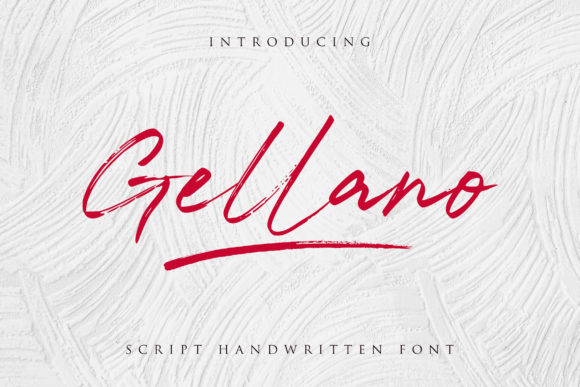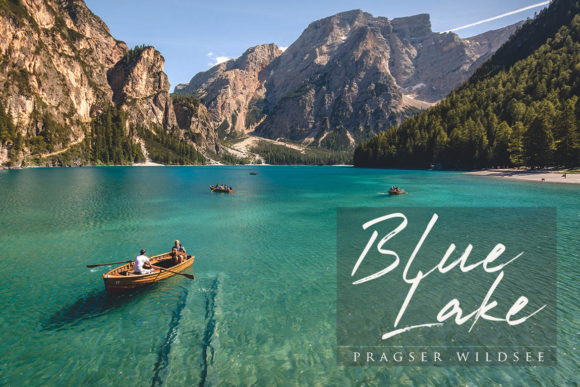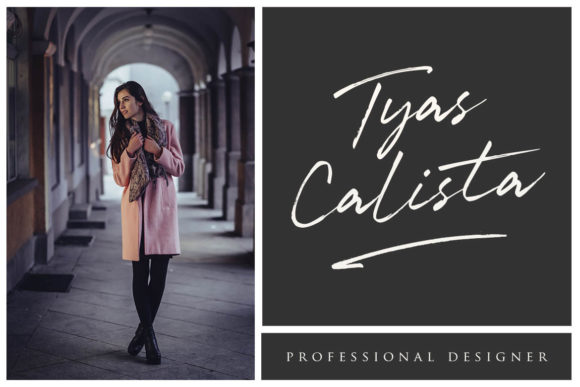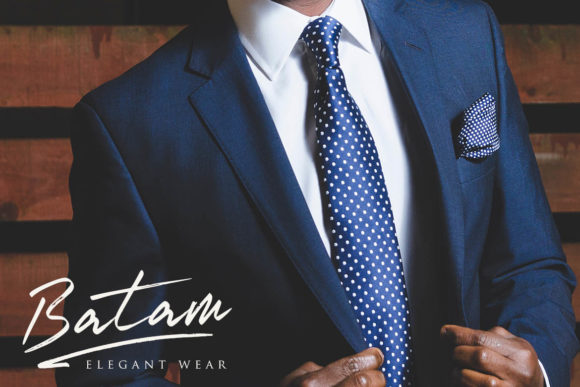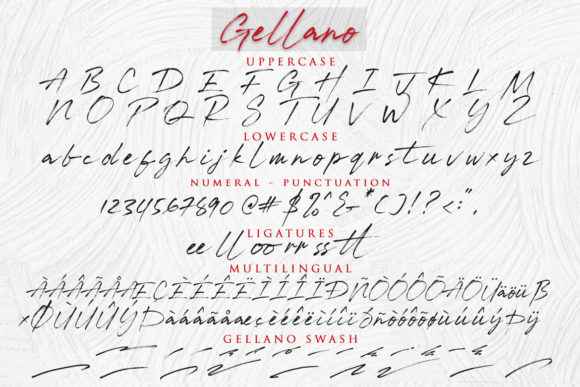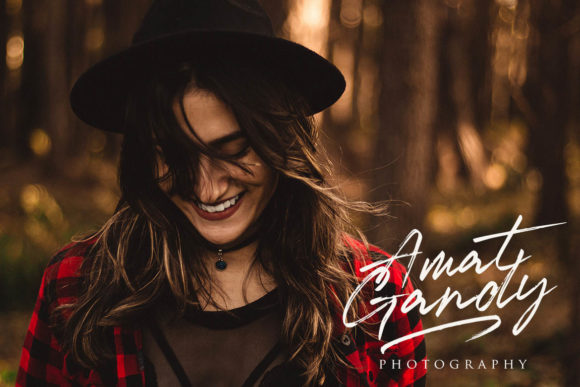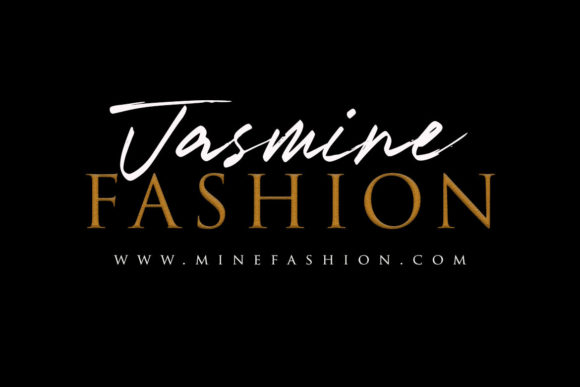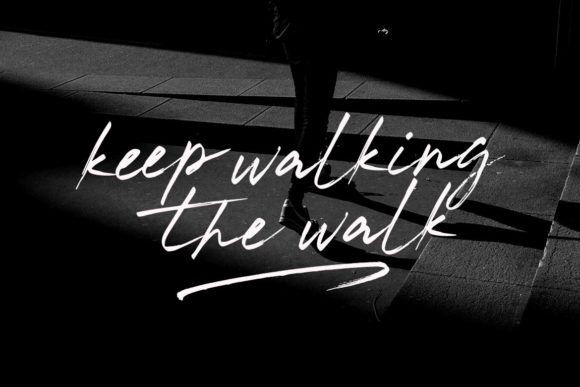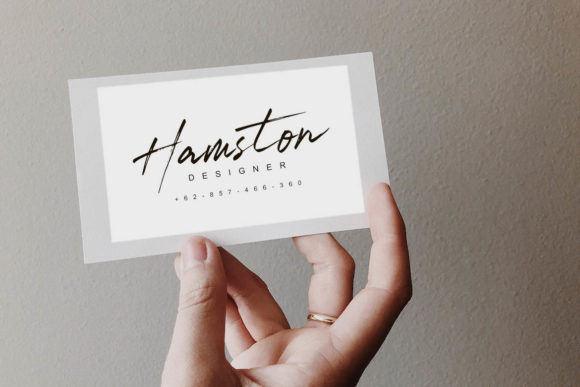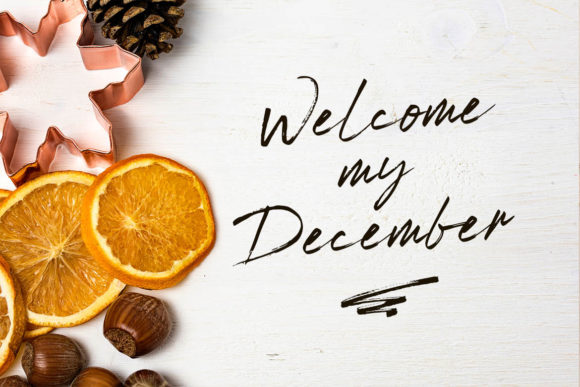
Gellano Font
About Gellano Font
Gellano is a cute casual brush script font. It is perfect for logos, product packaging, photography, branding and much more!